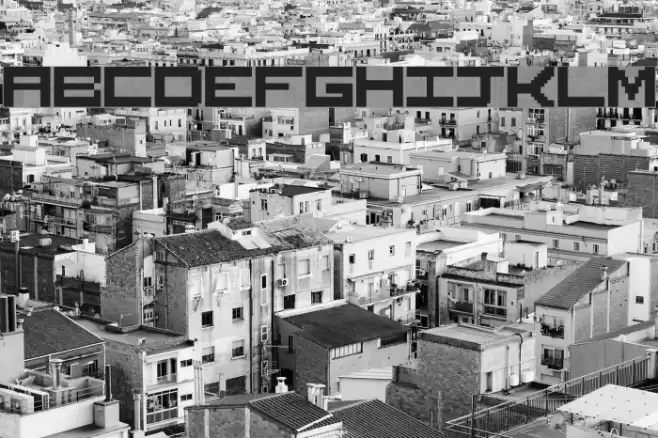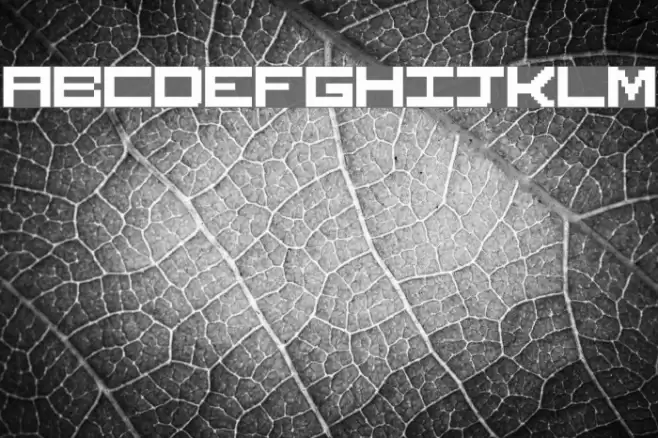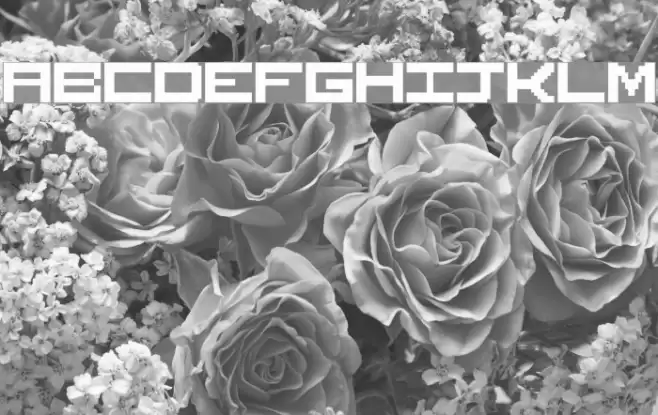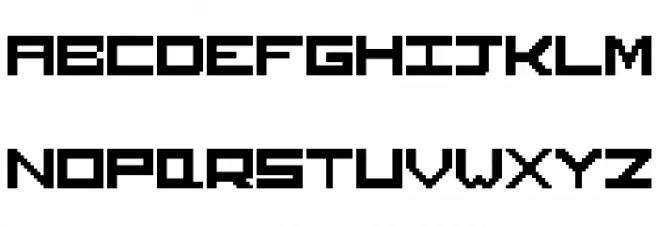
Viper Font
Viper Description
This font features a bold, geometric design with a distinctly pixelated appearance. The characters are constructed with sharp, angular lines, giving them a digital, retro aesthetic reminiscent of early computer graphics or video game text. The uniformity in stroke width across all characters contributes to a cohesive and structured look. The uppercase letters are particularly striking, with a blocky, robust form that commands attention. The font's style is both modern and nostalgic, making it suitable for projects that aim to evoke a sense of digital nostalgia or futuristic themes.
A bold, pixelated font with a geometric, retro digital aesthetic from Uncategorized fonts.
- Overall Style: Retro, Digital